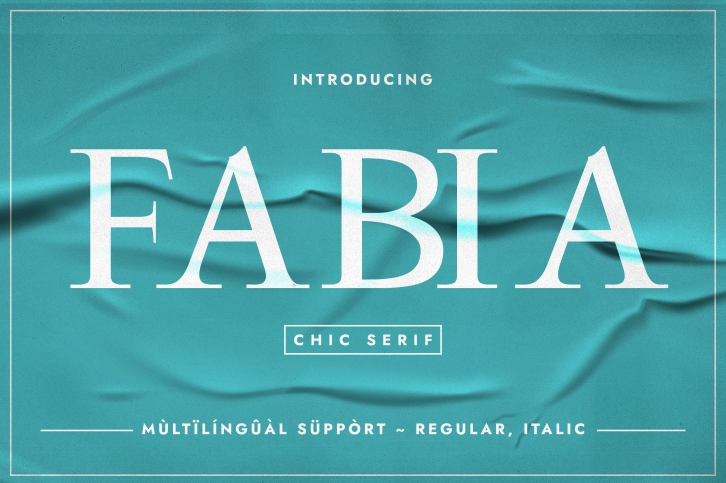
Fabia is an incredibly wonderful, clean slab serif typeface. Its clean, elegant construction makes it the right choice when you work on designs that require a minimalistic, stylish, and clean look. Add it confidently to your fonts library, so you notice how it fastly becomes one of your favorite design choices!